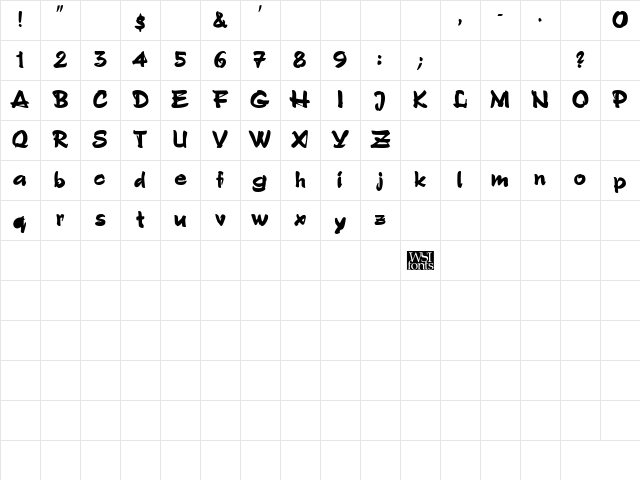
GrunionScript Bold Free Font
GrunionScript Bold
GrunionScript Family
Design Context for GrunionScript
GrunionScript flows with the natural rhythm of handwritten lettering, making it ideal for designs that call for warmth and personal expression. Its bold stroke weight gives it real presence on the page.
Font Pairing: Combine GrunionScript with a simple geometric sans for maximum contrast - the tension between flowing curves and clean structure is a classic typographic pairing.
Pro Tip: Use GrunionScript for short runs of text - names, titles, or taglines. Extended body copy in script faces tires the eye quickly.